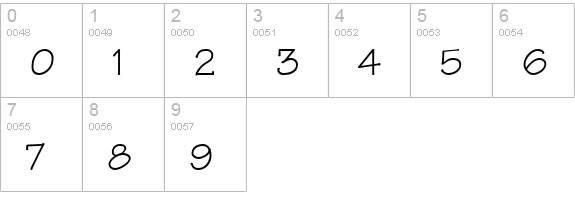
Introducing the remarkable Technical font, a modern and versatile typeface that is sure to elevate your design projects to new heights. With its sleek and clean lines, this font is perfect for conveying a sense of professionalism and precision in any technical or scientific context. Designed with meticulous attention to detail, every character in the Technical font exudes a sense of stability and clarity, making it an ideal choice for a wide range of applications. Whether you are designing a user manual, a technical report, or a website for a cutting-edge technology company, this font will bring a sense of sophistication and credibility to your work. One of the best features of the Technical font is that it is available for free download at FontsMarket.com. This means that you can access and use this incredible font without any financial burden. By offering this font for free, we aim to make it accessible to designers and professionals from all walks of life, ensuring that everyone can benefit from its distinctive and refined aesthetic. The Technical font comes in multiple weights and styles, allowing you to choose the perfect variation to suit your specific project. Whether you prefer a bold and impactful look or a more subtle and elegant approach, this font has got you covered. Its versatility knows no bounds, making it an excellent choice for both digital and print designs. In addition to its aesthetic appeal, the Technical font is also incredibly legible, even at small sizes. This makes it a reliable choice for conveying complex information and data in a clear and concise manner. No matter how technical or intricate your content may be, rest assured that the Technical font will ensure that it is presented in the most effective and visually appealing way possible. Don't miss out on the opportunity to enhance your designs with the Technical font. Head over to FontsMarket.com today and download this incredible font for free. With its sleek and professional design, exceptional legibility, and wide range of styles, the Technical font is truly a must-have for any designer or professional in need of a high-quality typeface. Elevate your work to new levels of excellence with the Technical font today.